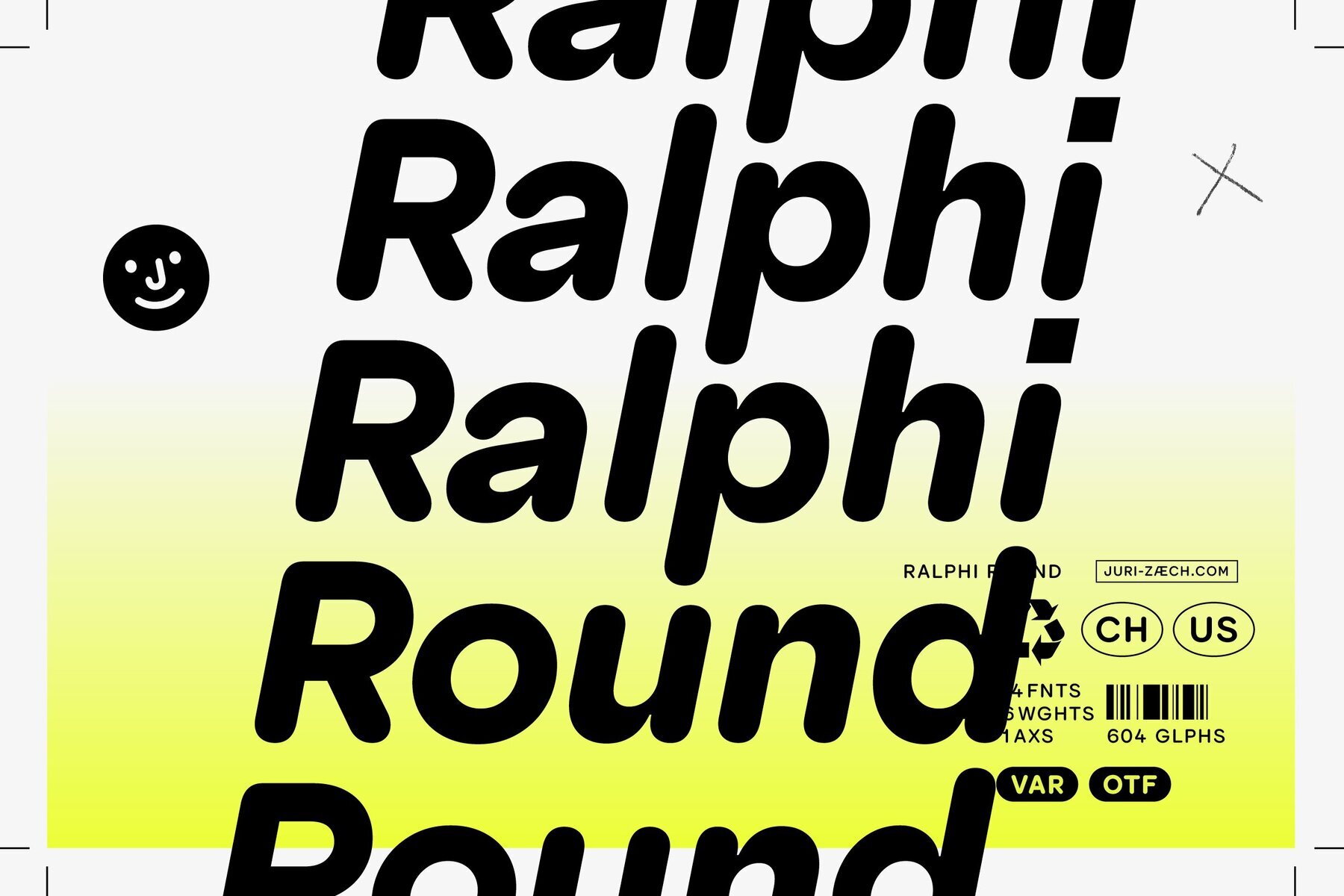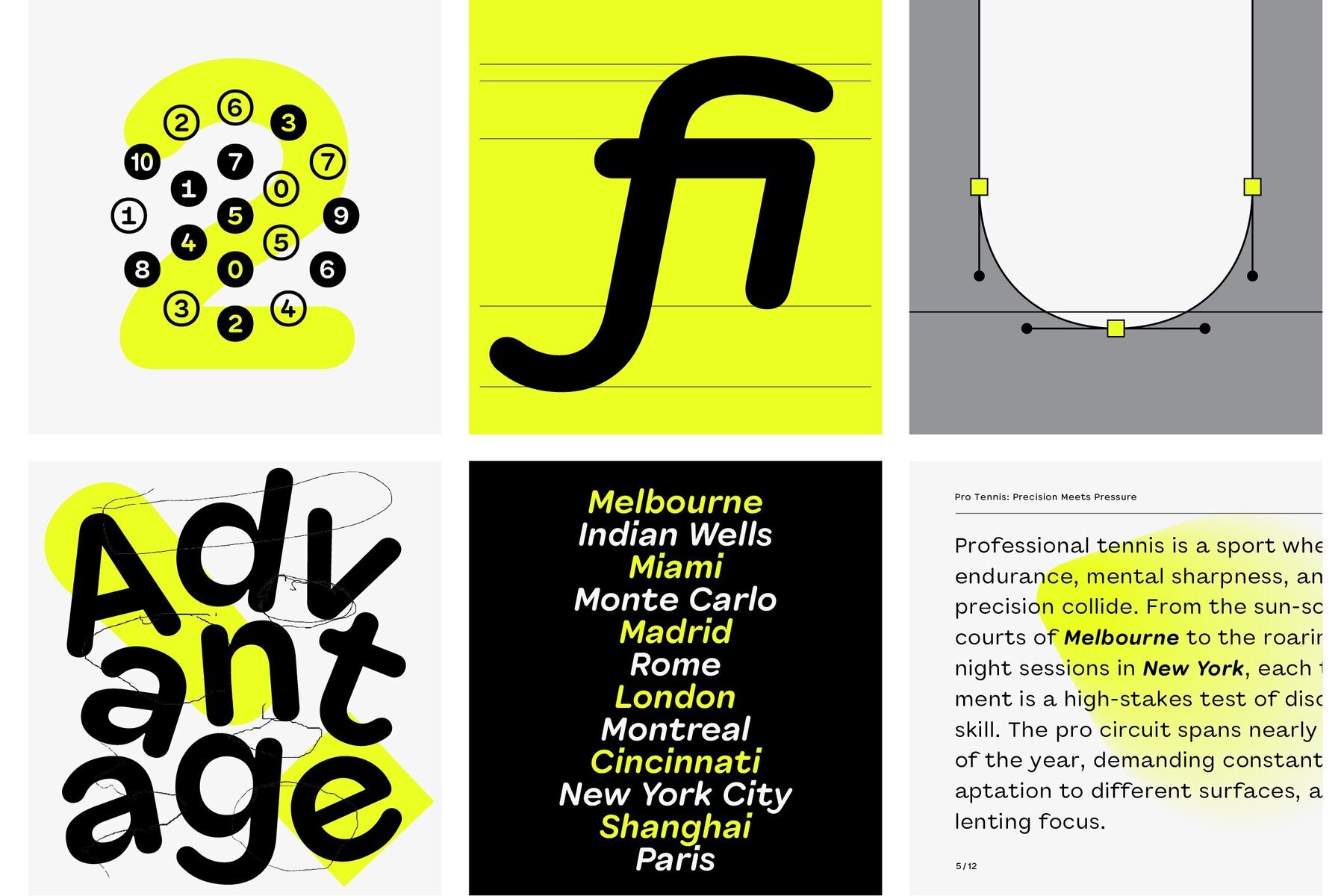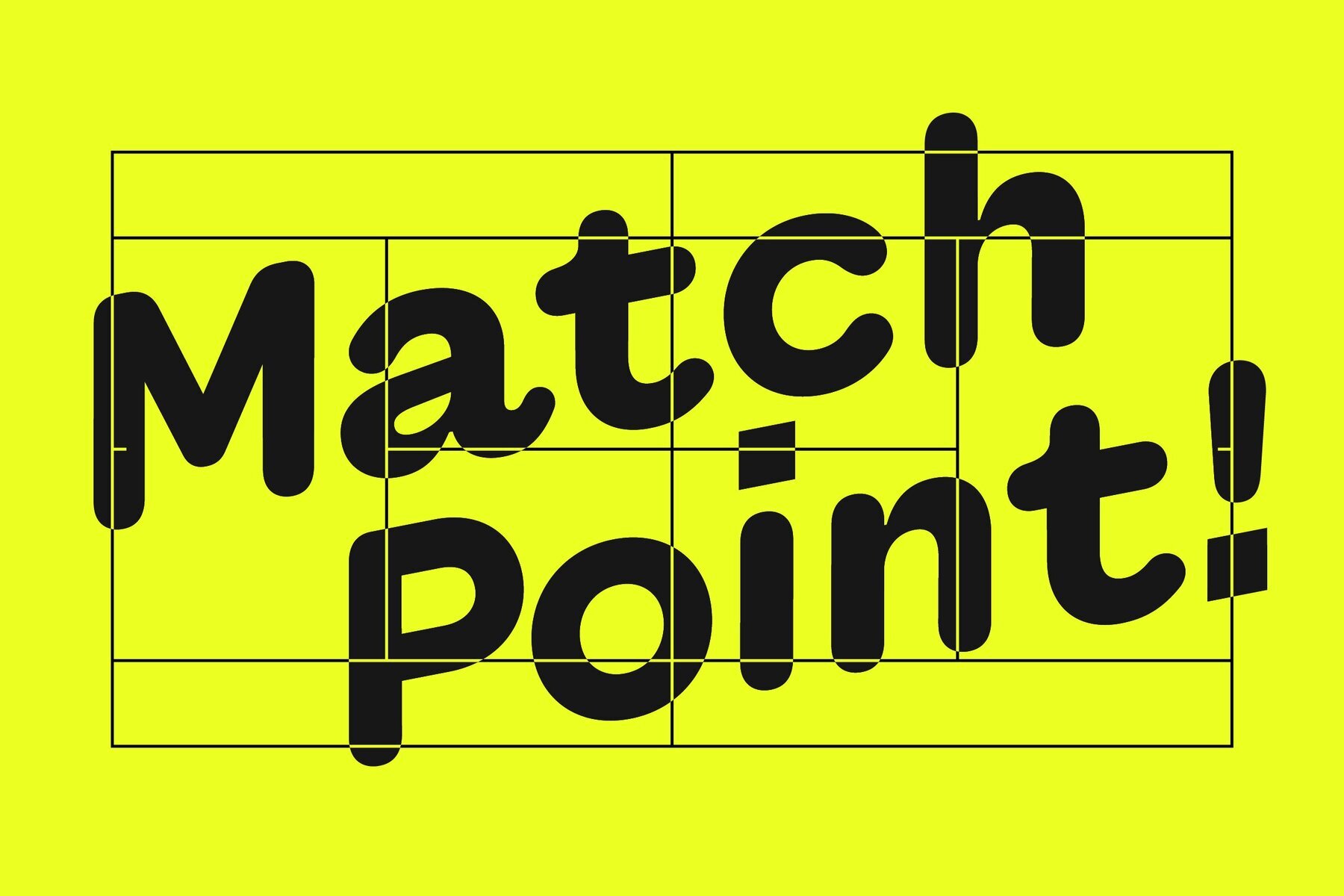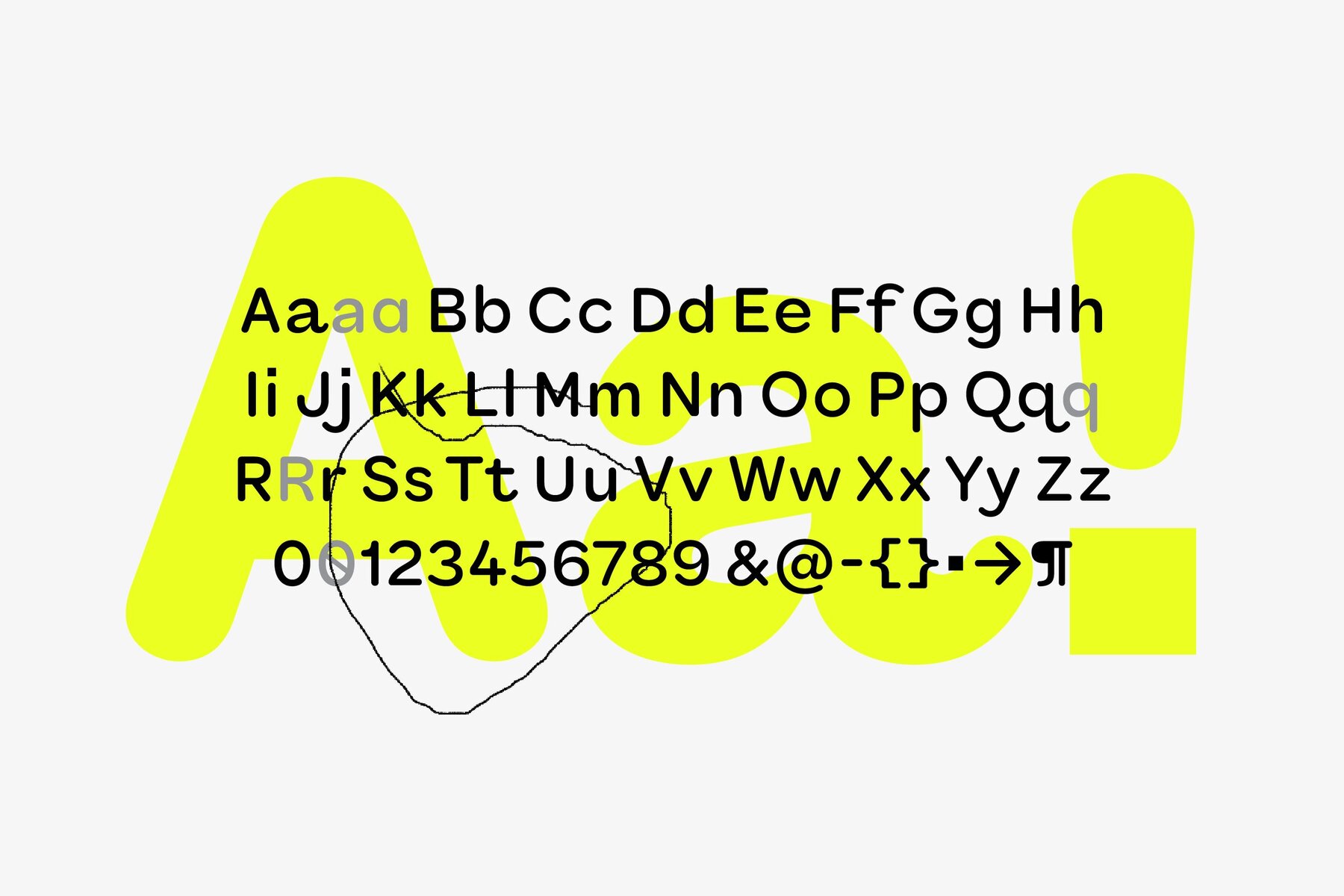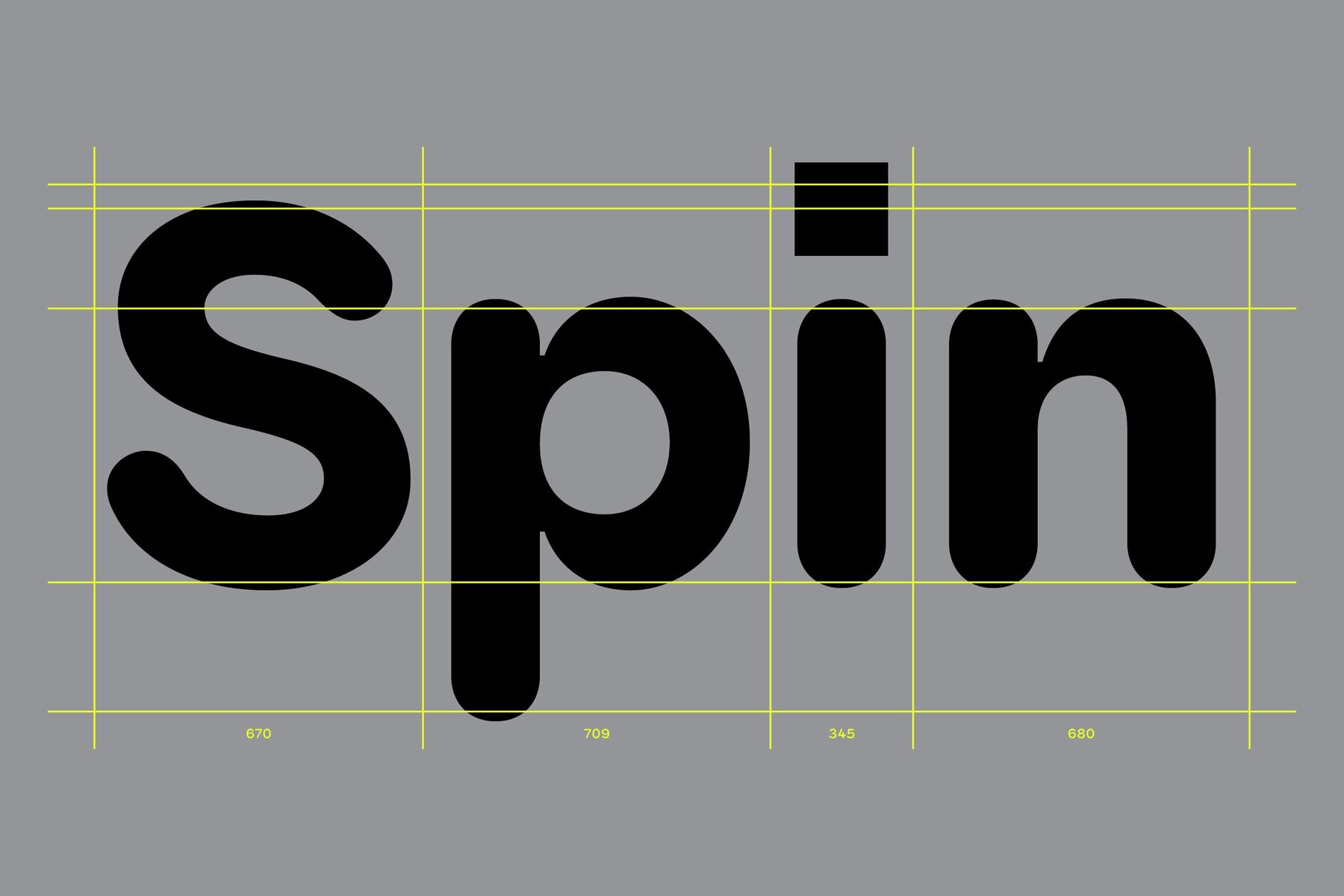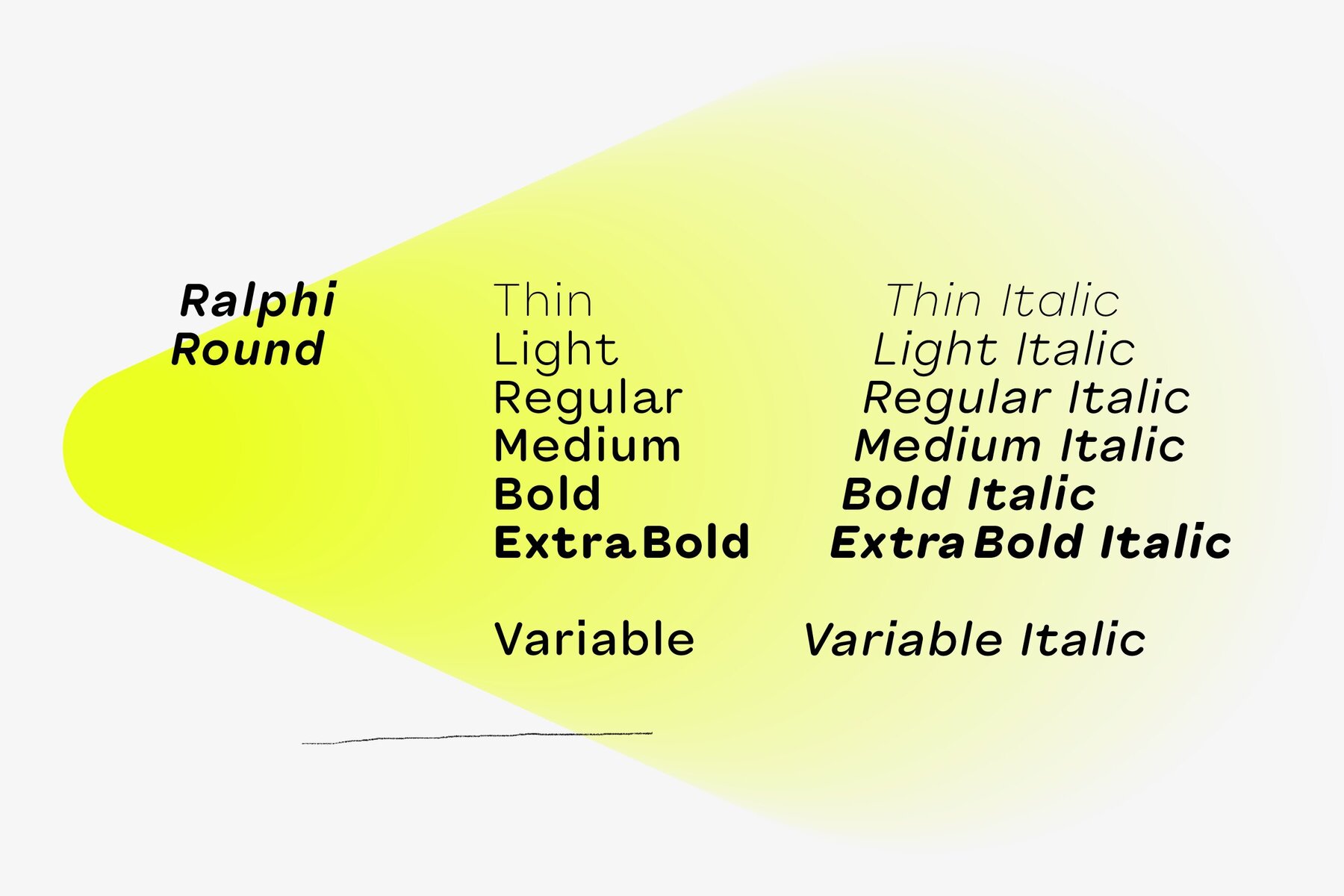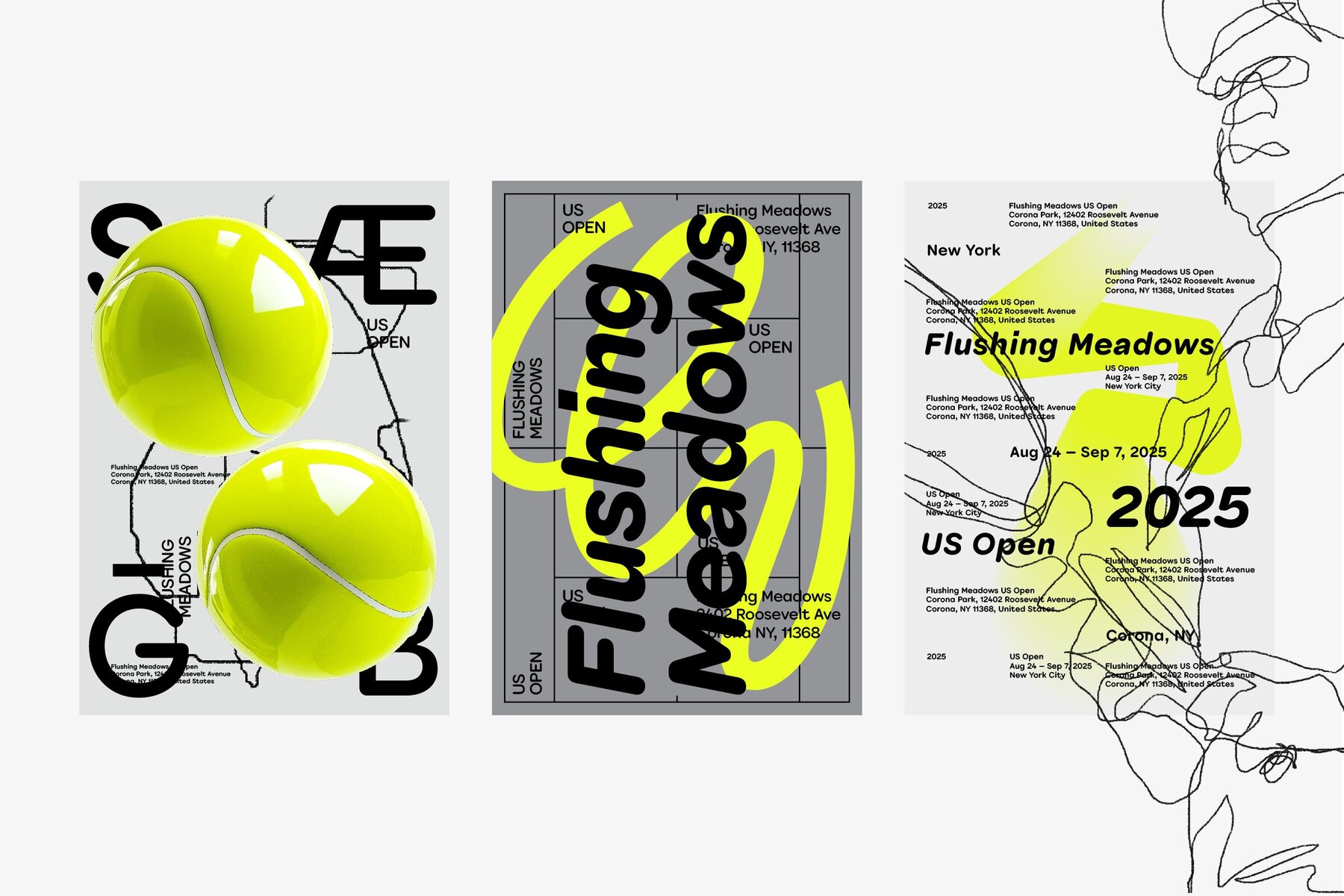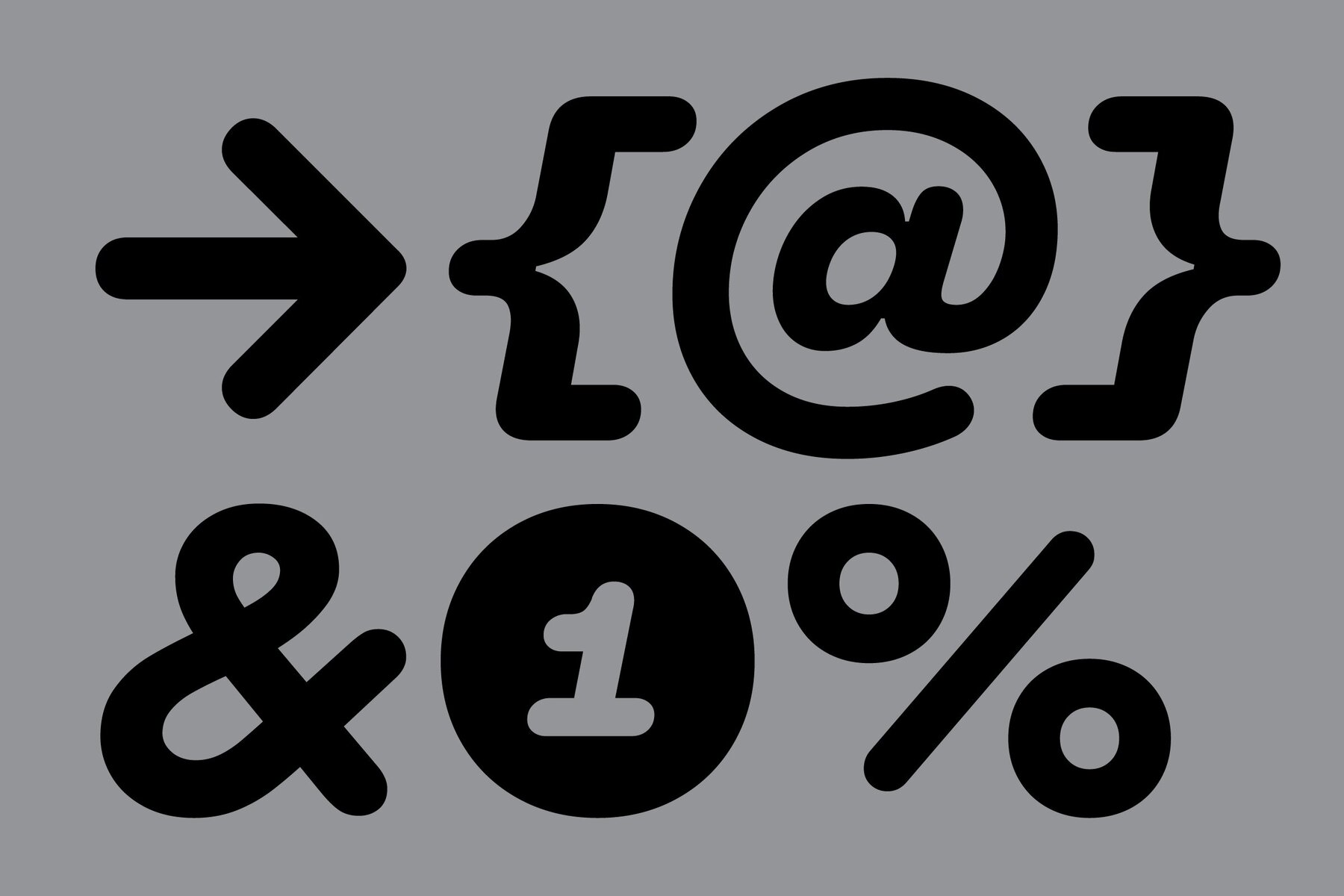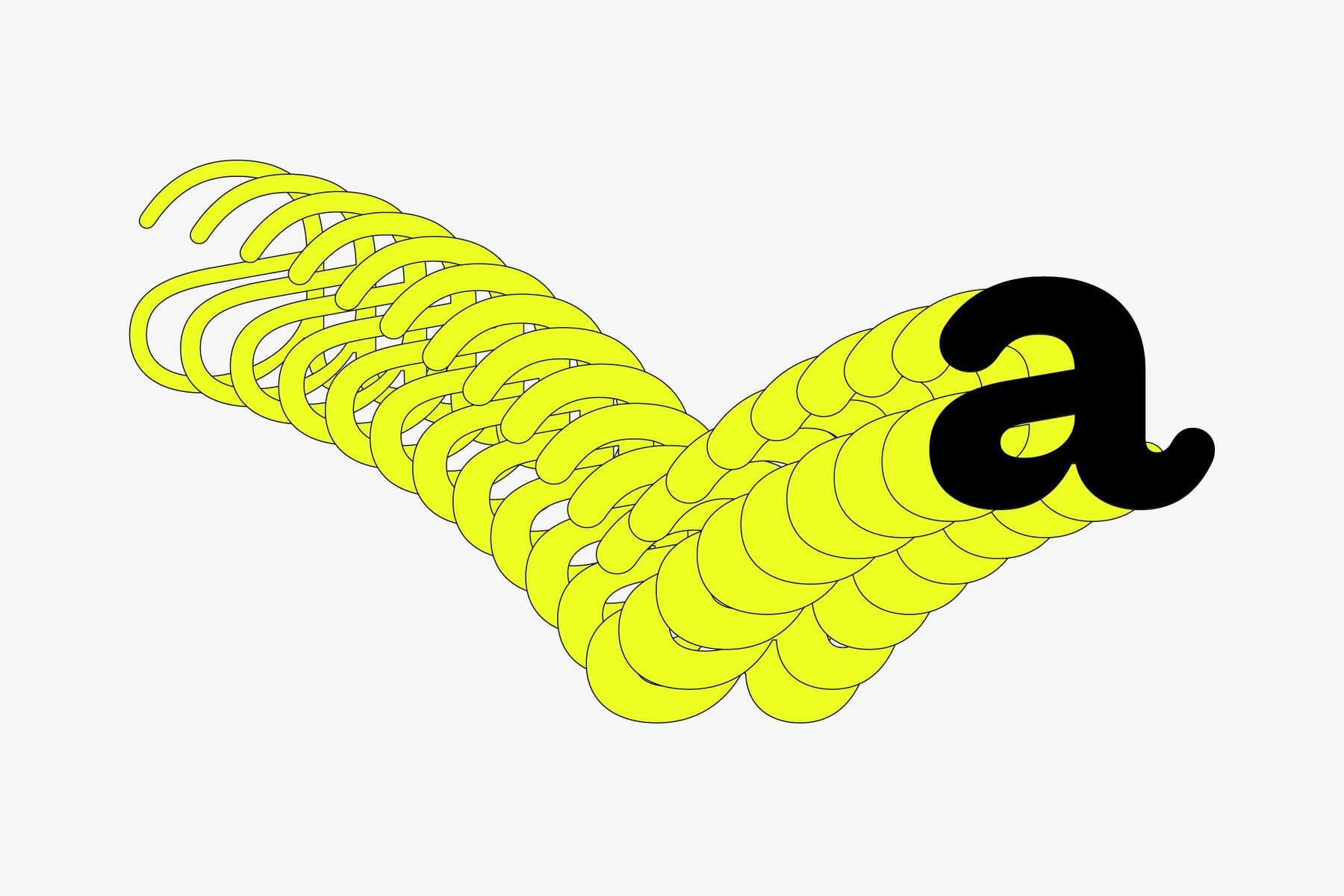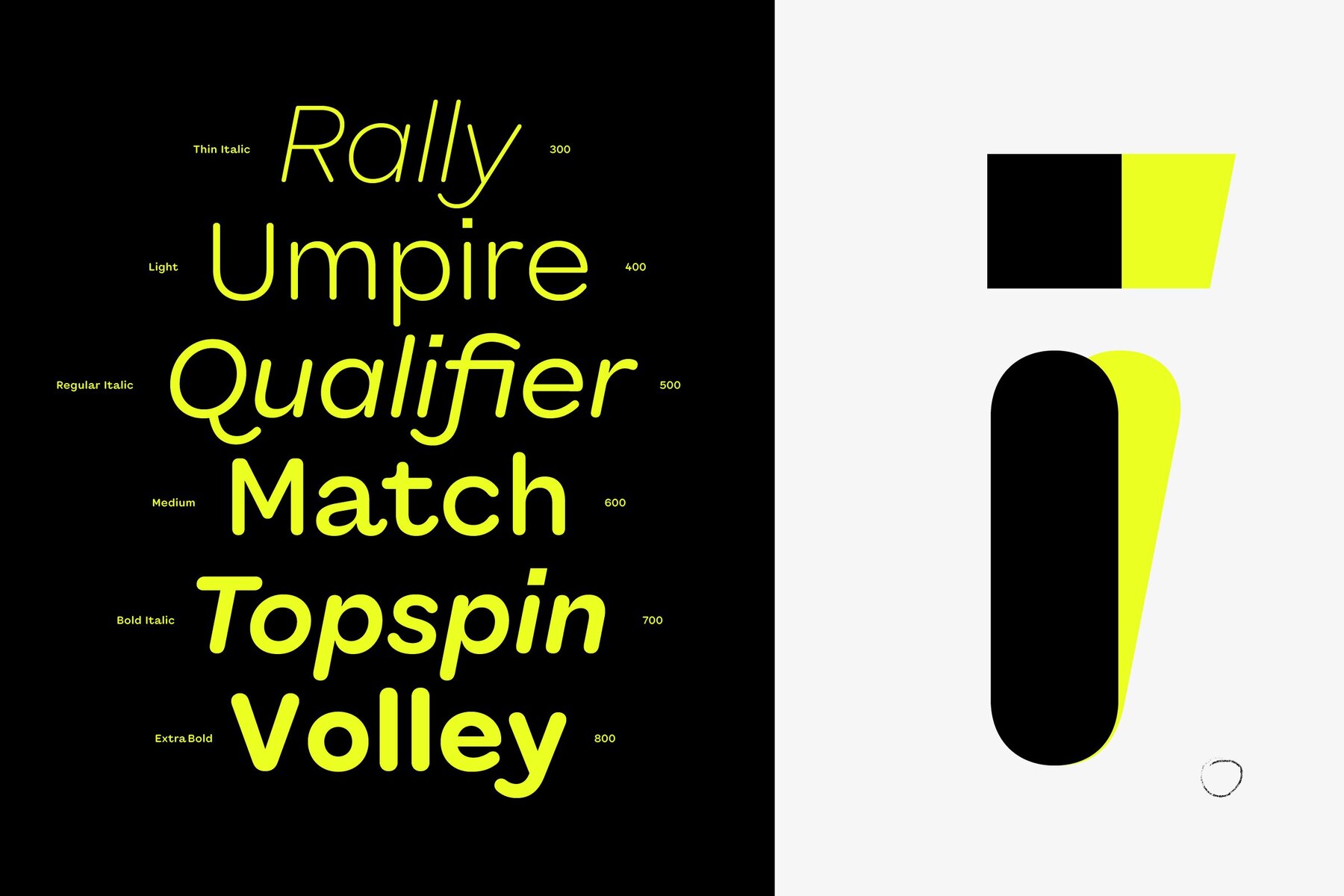
Ralphi Round Font
Ralphi Round is the spirited counterpart to Ralphi Sans — same geometry, same warmth, but with a confident twist. Its rounded stroke endings give it a softer, more tactile appearance, ideal for brands and interfaces that lean into friendliness and clarity. But don’t mistake softness for simplicity: Ralphi Round introduces a bold visual inversion that defines its personality. Where Ralphi Sans paired round dots and punctuation with straight terminals, Ralphi Round flips that logic — rounded terminals now meet sharply square tittles and punctuation marks. This deliberate contrast adds structure to the softness and gives the design a distinctive presence — confident, contemporary, and visually engaging. Ralphi Round keeps the generous proportions, deep joints, and playful character details that made Ralphi Sans effective in digital settings and identity work. Characters like a, f, q, t, y, and Q feature lively gestures that add energy and personality. OpenType alternates let designers adjust the look — offering multiple forms for key letters like a to help tailor the typographic voice to different projects, whether playful, clean, or somewhere in between. It comes equipped with comprehensive typographic features like tabular figures, case-sensitive punctuation, automatic fractions, circled numerals, and arrows. Ralphi Round’s character set covers Underwear’s Latin Plus and with it over 200 latin languages. It is carefully kerned and available in six weights with corresponding italics. The full family of 12 individual styles is also available as two variable fonts, one for uprights and one for italics.